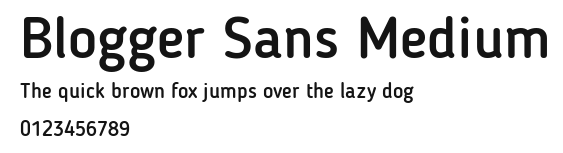
• Font Name: Blogger Sans Medium
• Full Font Name: Blogger Sans Medium
• Designer: Ткаченко Сергій Сергійович
• Manufacturer: Ткаченко Сергій Сергійович (Кременчук, Україна)
About Blogger Sans Medium.ttf
Blogger Sans Medium.ttf is a modern, elegant sans-serif font designed for ultimate readability and visual harmony. Perfect for branding, headlines, web design, and print materials.